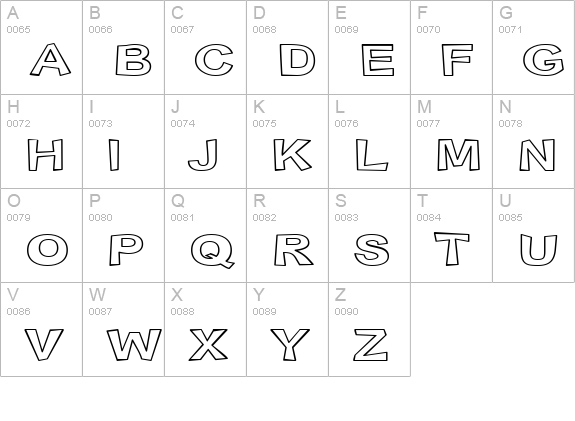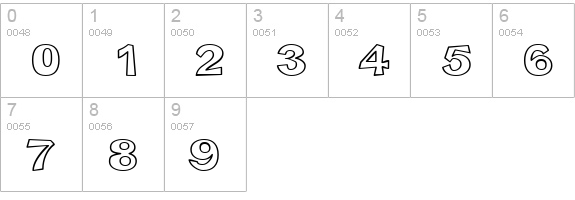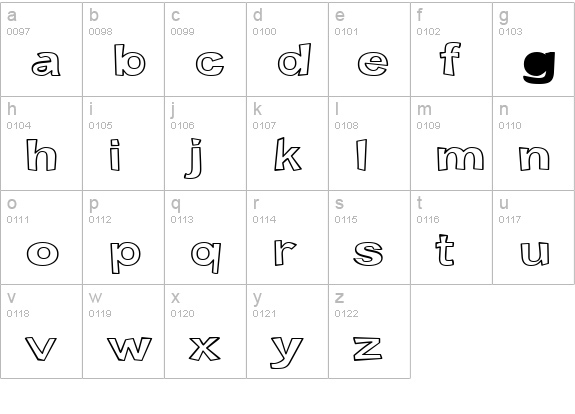
Snott Outline Font Details
Snott Outline is a stunning and innovative font that effortlessly combines a sleek and modern aesthetic with a touch of whimsical charm. Its unique outline design adds a captivating dimension to any project, making it perfect for logos, branding, headlines, and more. This font stands out from the crowd with its clean and crisp lines, giving it a polished and professional look. The carefully crafted detail in each letter is sure to catch the eye and make a lasting impression. Whether used in print or digital media, Snott Outline delivers a fresh and contemporary vibe that is sure to elevate your designs. What makes Snott Outline even more appealing is that it is available for free! That's right, this exceptional font can be downloaded at no cost from FontsMarket.com, a trusted source for high-quality fonts. This means that you can enjoy all the benefits of Snott Outline without breaking the bank. It's the perfect opportunity to add a touch of elegance to your projects without spending a dime. With its versatility and striking visual appeal, Snott Outline is a font that will take your designs to the next level. So why wait? Download Snott Outline today and unlock a world of creative possibilities. Whether you're a graphic designer, a marketer, or simply someone looking to add a touch of style to your personal projects, this font is sure to impress. Don't miss out on the chance to enhance your designs with this amazing free font. Get Snott Outline now and let your creativity soar!